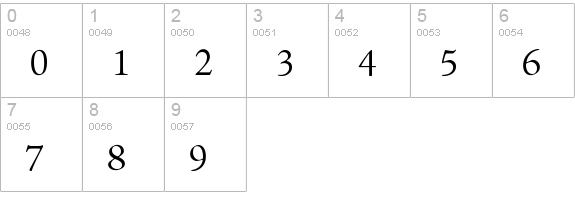
Adobe Jenson Pro Subhead Font Details
Adobe Jenson Pro Subhead is a sophisticated and elegant serif font that exudes a timeless appeal. With its classic letterforms and subtle details, this font is perfect for adding a touch of refinement to any design project. The generous x-height and delicate serifs create a harmonious balance, making it ideal for subheadings and titles. What's even better is that Adobe Jenson Pro Subhead is available for free download at FontsMarket.com. This means you can easily incorporate this beautiful font into your projects without any cost, making it a valuable asset for designers and creatives looking to enhance their work with a touch of sophistication. Unlock the potential of Adobe Jenson Pro Subhead today and elevate your designs with its timeless charm.